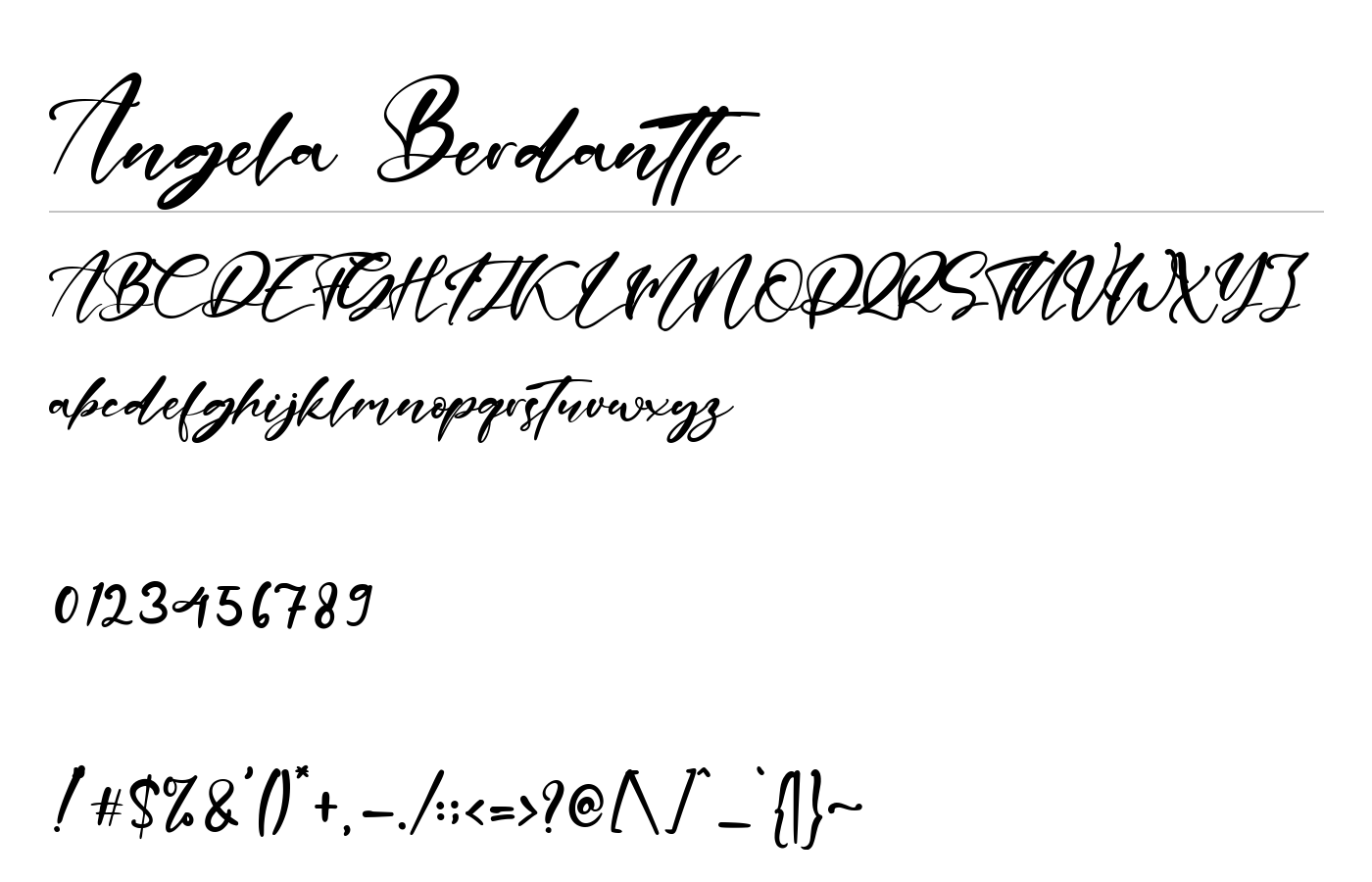
Angela Berdantte is an elegant, handwritten script font with a refined, flowing style that combines a bold, expressive weight with graceful, slender strokes. Its cursive letterforms, featuring unique and playful flourishes, create a sophisticated yet approachable feel, making it ideal for fashion branding, invitations, and creative projects seeking a personal, artistic touch. This font stands out in logos, headlines, and packaging where a stylish, modern script can add charm and character.
Angela Berdantte Font